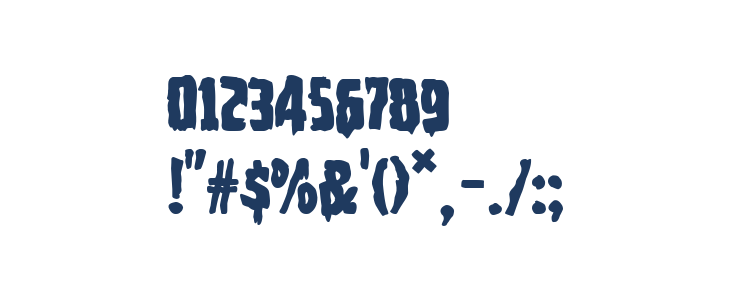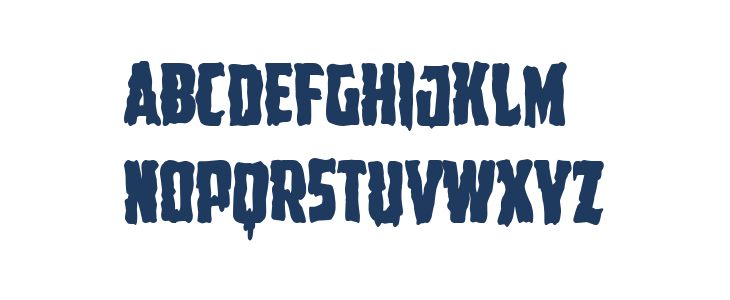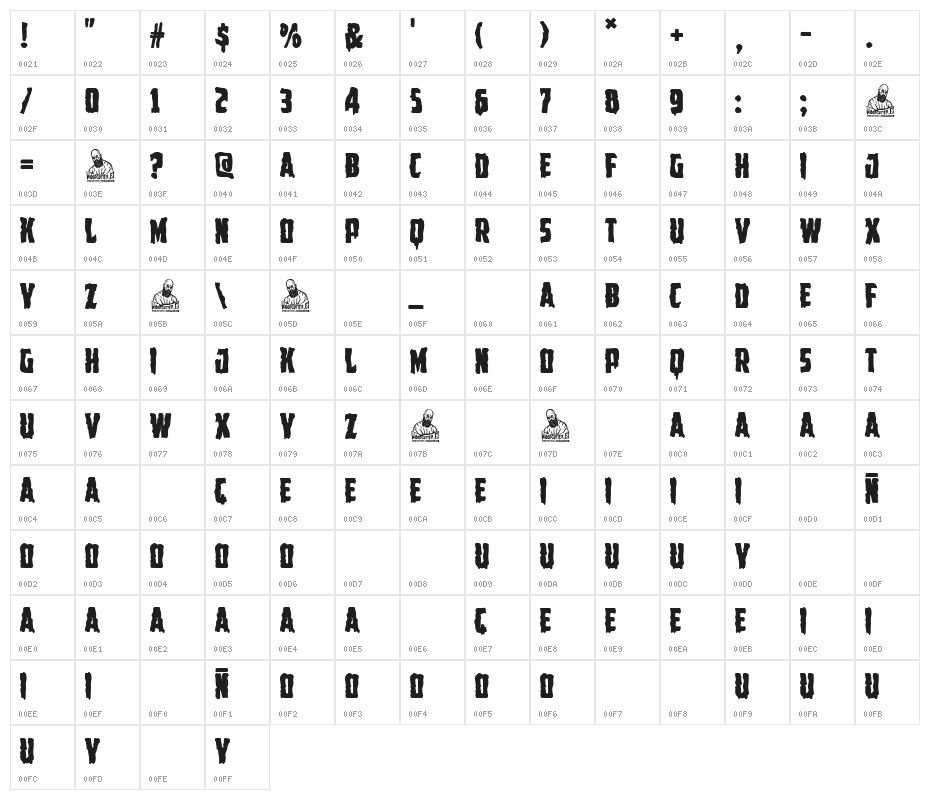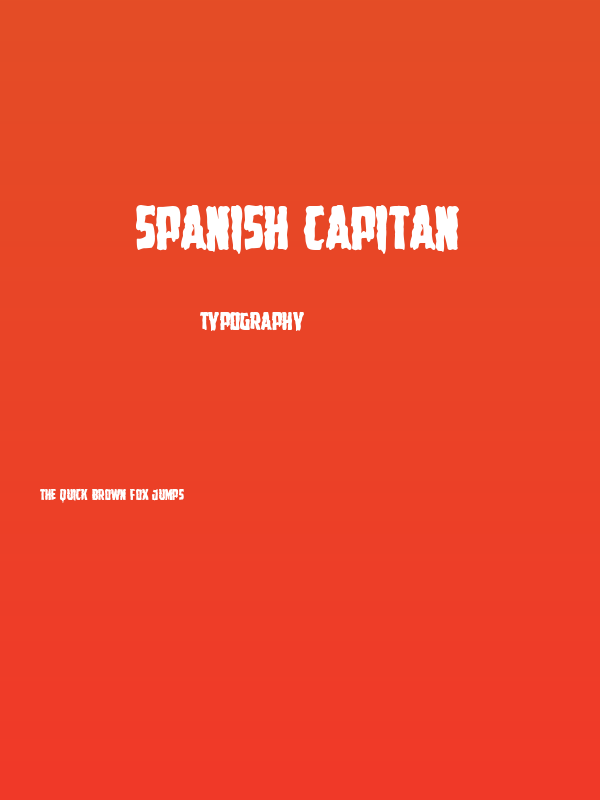
Spanish Capitan Font
Spanish Capitan Description
A bold, irregular display font with rough, jagged edges and a hand-drawn, distressed appearance. The characters are uppercase with exaggerated, uneven forms, giving a dramatic and energetic feel.
| Overall Style | Decorative, Dramatic, Hand-drawn |
| Use Case | Headlines, Posters, Logos, Themed Events |
| Proposed Projects | Posters, horror or adventure-themed graphics, event flyers, Halloween designs, comic book titles. |